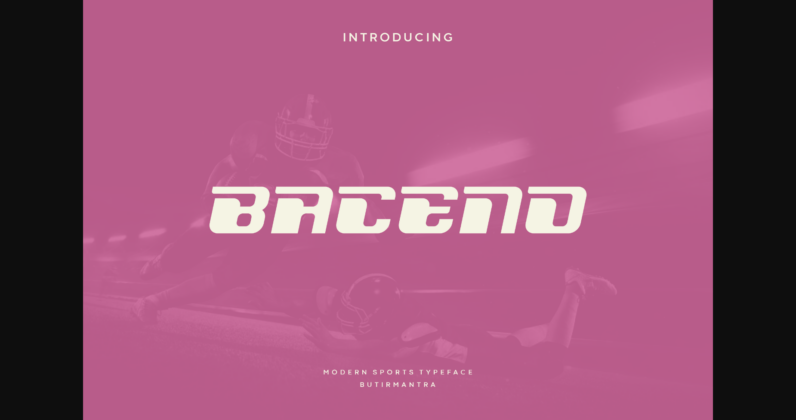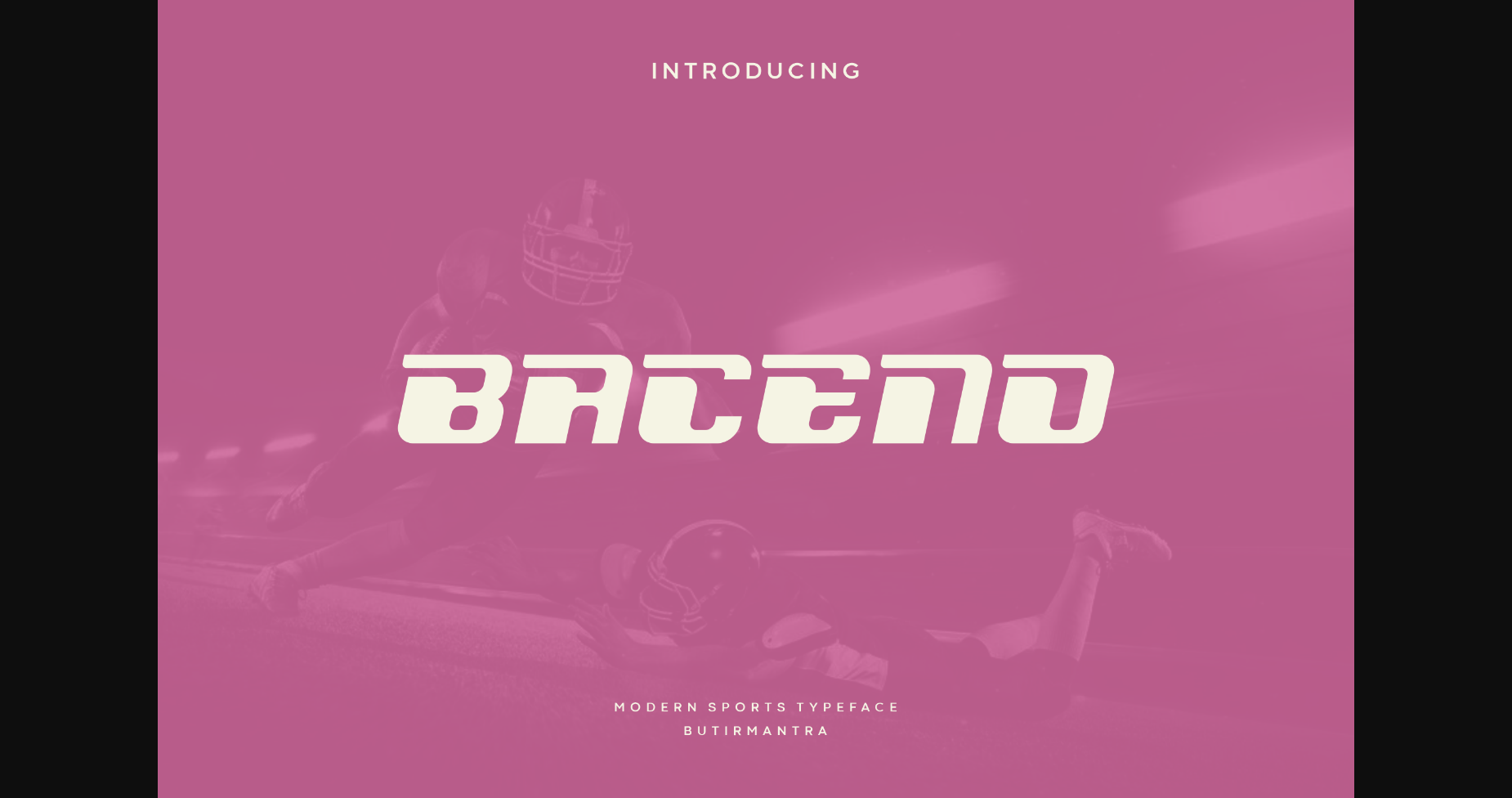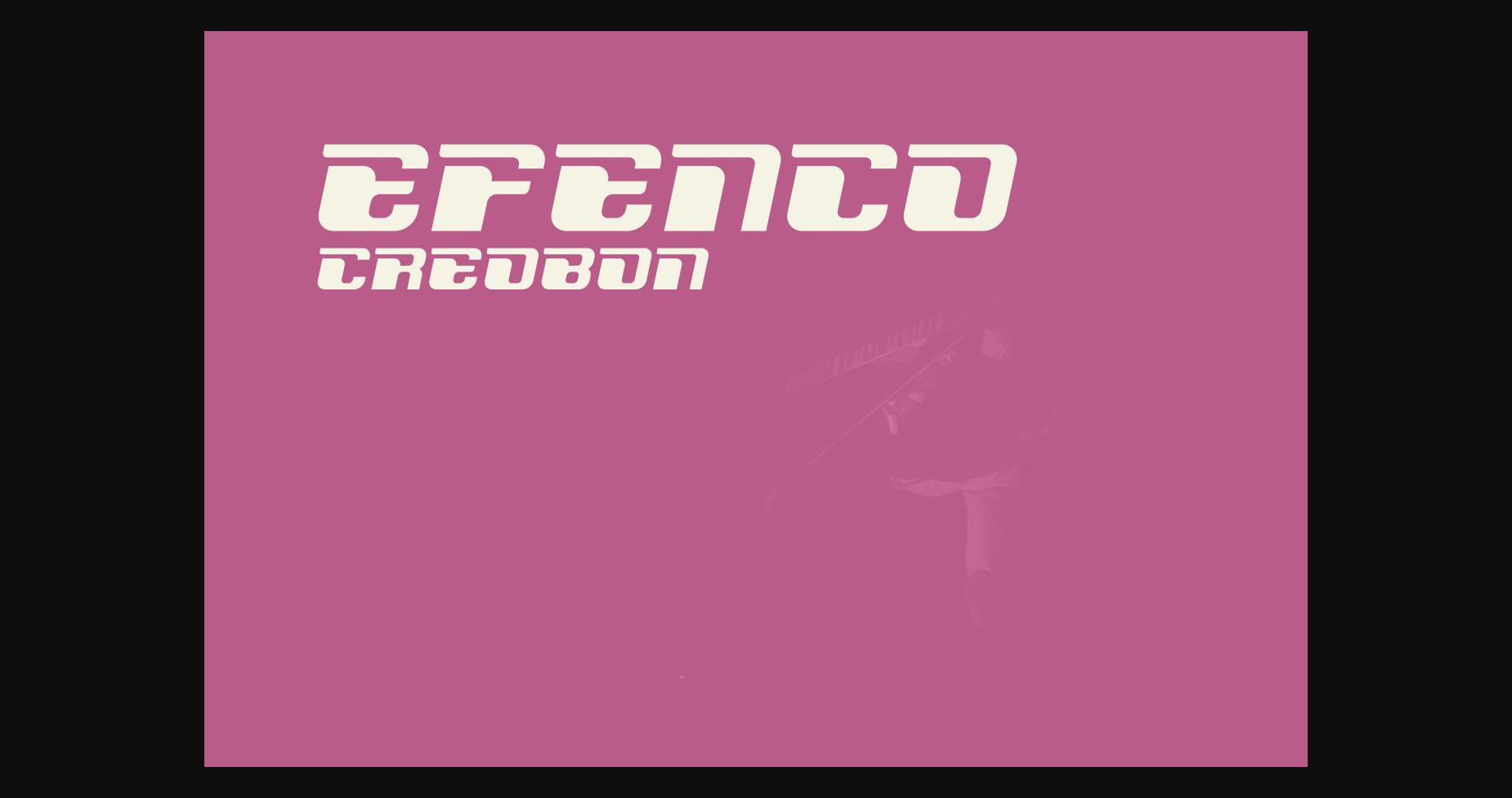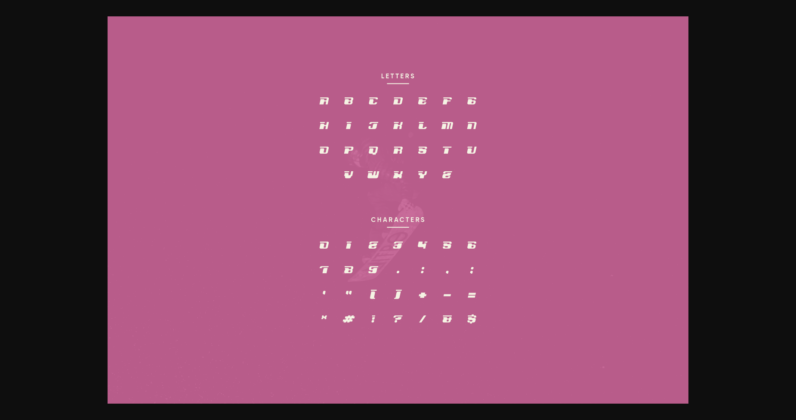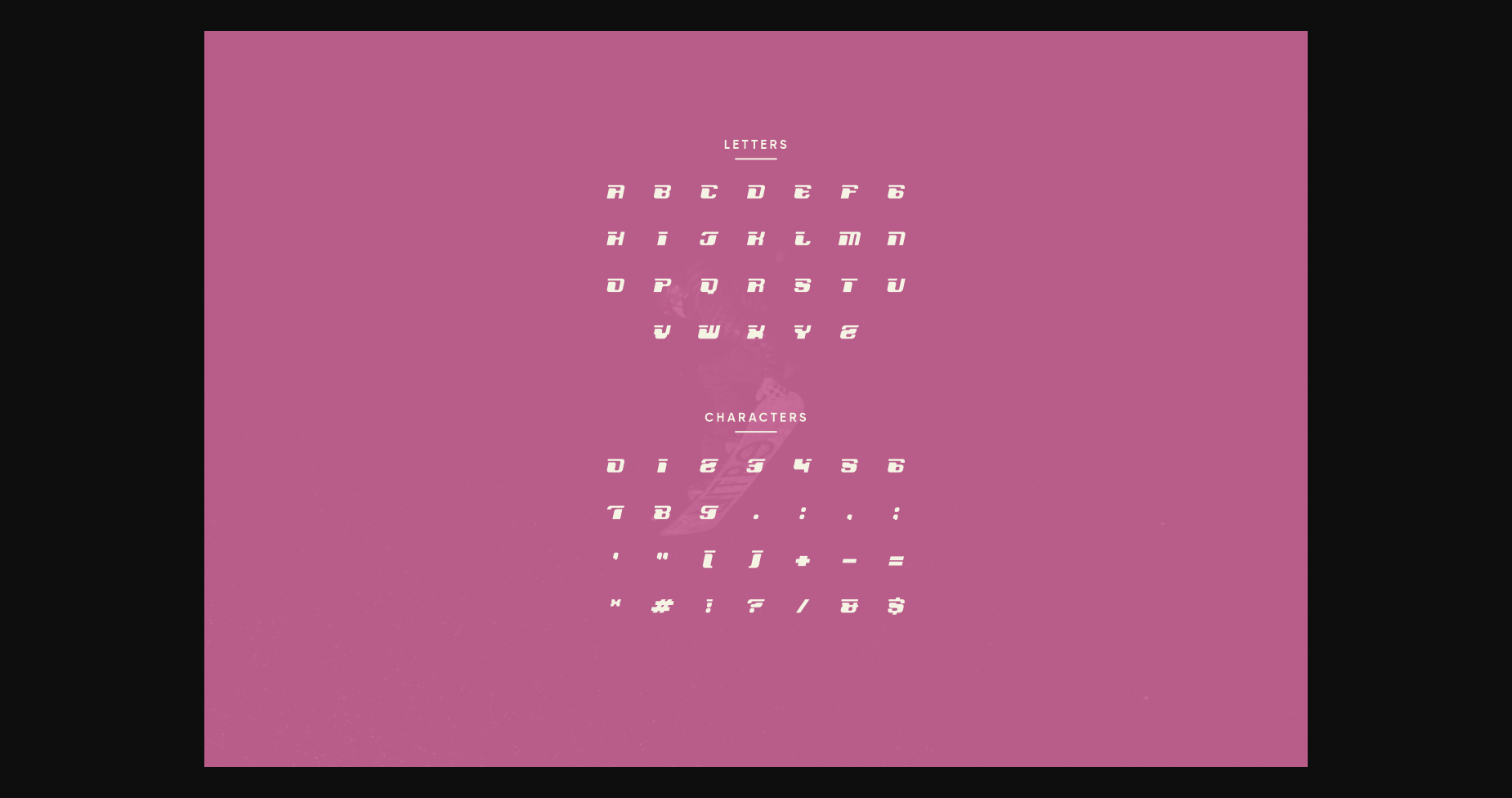
Baceno Font
About Baceno Font
Baceno is a modern, sporty display font with a unique twist. Its bold letterforms are enhanced with stylish cutouts, giving it an edgy and dynamic appearance. Designed to capture the spirit of athleticism and energy, Baceno is perfect for sports-related designs, team logos, and event promotions. Stand out from the competition with this eye-catching font that exudes strength and style.